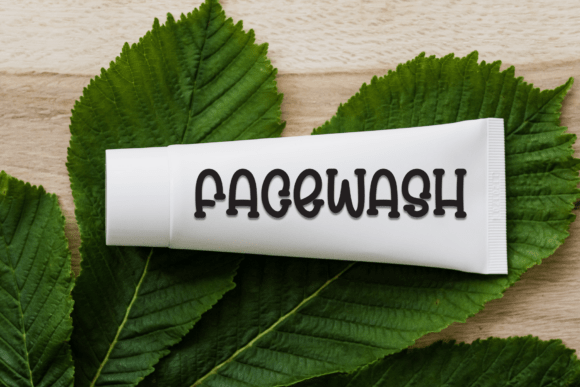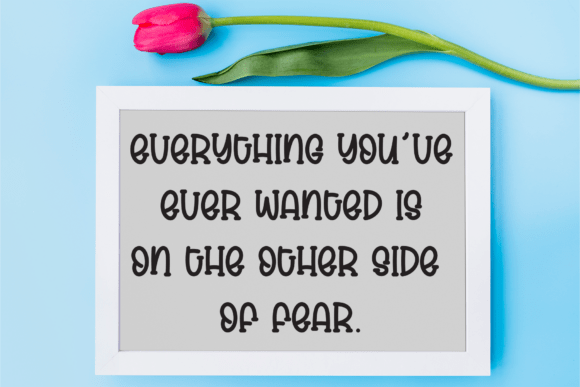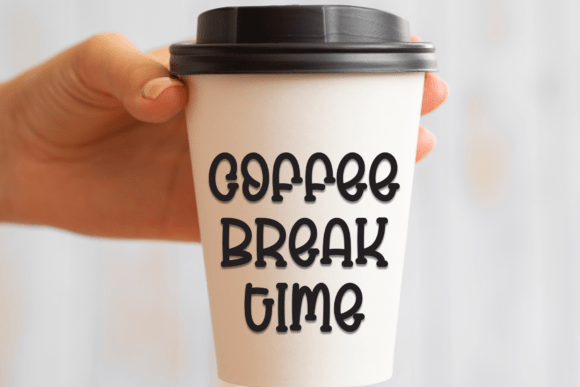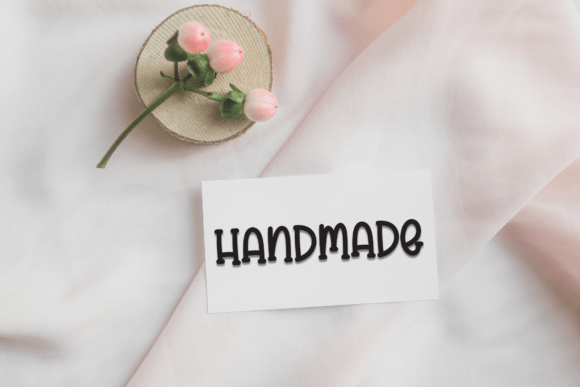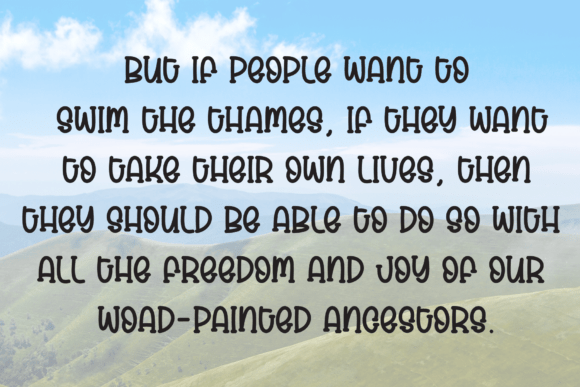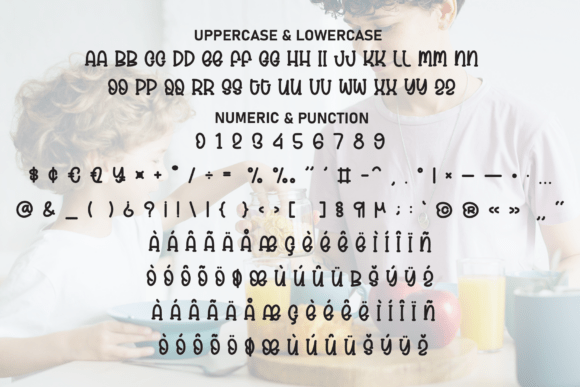
Introducing Happy Everyday Font: The Perfect Choice for Friendly and Fresh Designs
Are you looking for a font that can add a touch of friendliness and approachability to your designs? Look no further than Happy Everyday Font! This casual and neat display font is perfect for creating fresh and vibrant designs that radiate a happy and carefree vibe. In this article, we’ll take a closer look at the Happy Everyday Font, its features, and how you can use it to elevate your designs.
What is Happy Everyday Font?
Happy Everyday Font is a display font designed to bring a sense of joy and friendliness to your designs. Its clean lines and relaxed structure make it perfect for a wide range of applications, from packaging and posters to social media graphics and more. The font’s approachable design adds charm and clarity to projects while maintaining a polished appearance.
Key Features of Happy Everyday Font
- Clean Lines: Happy Everyday Font features clean and crisp lines that give it a fresh and modern look.
- Relaxed Structure: The font’s relaxed structure makes it perfect for creating designs that feel approachable and friendly.
- Display Font: Happy Everyday Font is designed as a display font, making it perfect for headlines, titles, and other attention-grabbing elements.
- Versatile: The font is versatile and can be used for a wide range of applications, from packaging to social media graphics.
Why Choose Happy Everyday Font?
There are many reasons why Happy Everyday Font is a great choice for designers and crafters. Here are a few:
- Unique and Eye-Catching: Happy Everyday Font is a unique and eye-catching font that can help your designs stand out from the crowd.
- Easy to Read: The font is easy to read, even at smaller sizes, making it perfect for use in a variety of applications.
- Customizable: Happy Everyday Font is highly customizable, allowing you to adjust the font to fit your design needs.
- Time-Saving: With Happy Everyday Font, you can create professional-looking designs in no time, saving you time and effort.
Using Happy Everyday Font in Your Designs
Happy Everyday Font is a versatile font that can be used in a wide range of applications. Here are a few ideas to get you started:
- Packaging: Use Happy Everyday Font to create eye-catching packaging that stands out on store shelves.
- Posters: Create vibrant and engaging posters that grab attention with Happy Everyday Font.
- Social Media Graphics: Use Happy Everyday Font to create social media graphics that are friendly, approachable, and engaging.
- Branding: Use Happy Everyday Font as part of your branding strategy to create a consistent and recognizable visual identity.
Tips and Tricks for Getting the Most Out of Happy Everyday Font
Here are a few tips and tricks to help you get the most out of Happy Everyday Font:
- Experiment with Colors: Happy Everyday Font looks great in a variety of colors, so don’t be afraid to experiment and find the perfect color scheme for your design.
- Play with Font Sizes: Happy Everyday Font is highly versatile, so try using it in different font sizes to create visual interest and hierarchy.
- Combine with Other Fonts: Happy Everyday Font pairs well with other fonts, so try combining it with other fonts to create a unique and interesting design.
Happy Everyday Font is a fresh and friendly display font that’s perfect for designers and crafters looking to add a touch of approachability and charm to their designs. With its clean lines, relaxed structure, and versatile design, Happy Everyday Font is a great choice for a wide range of applications. Whether you’re creating packaging, posters, social media graphics, or more, Happy Everyday Font is sure to bring a smile to your audience’s face.